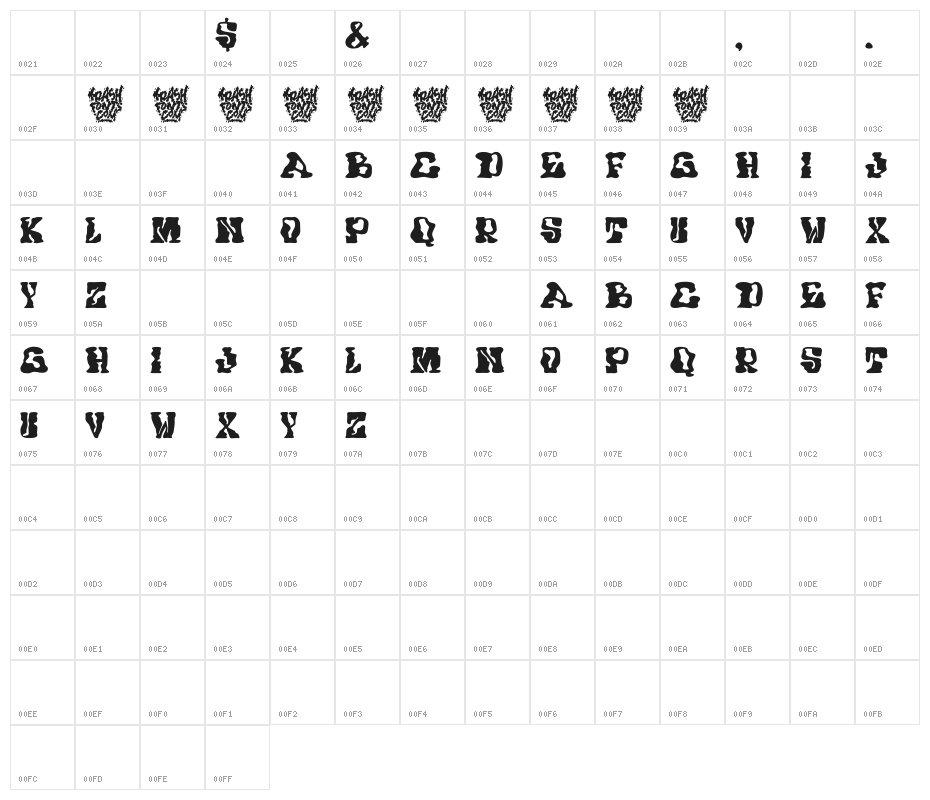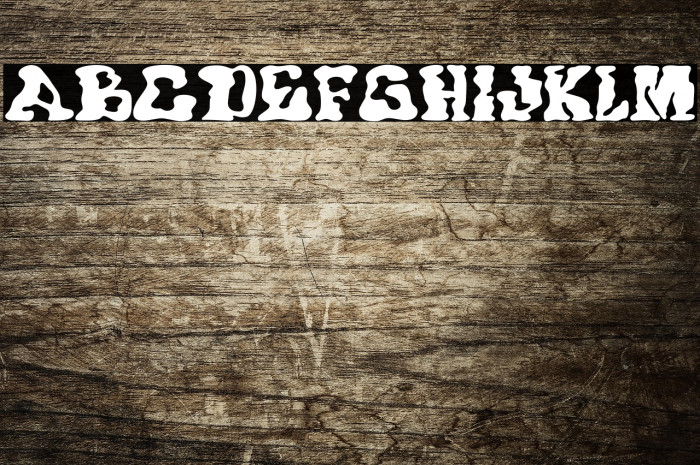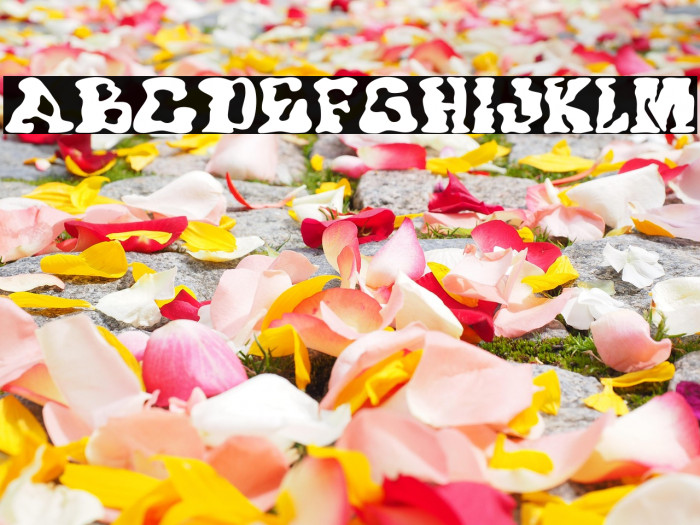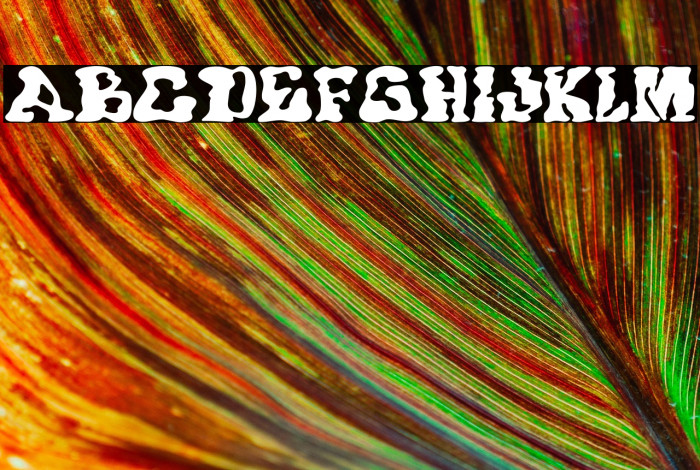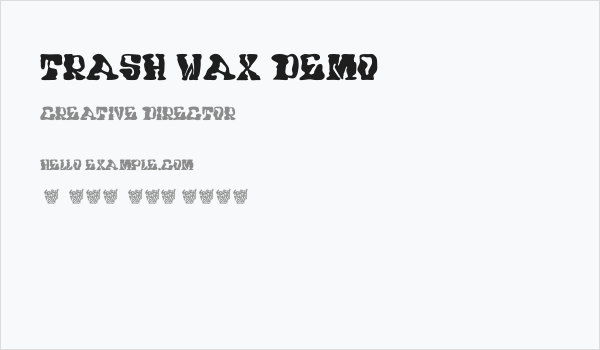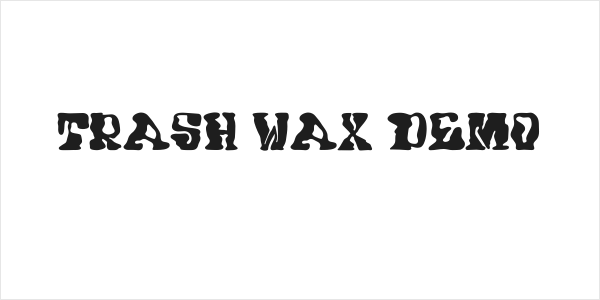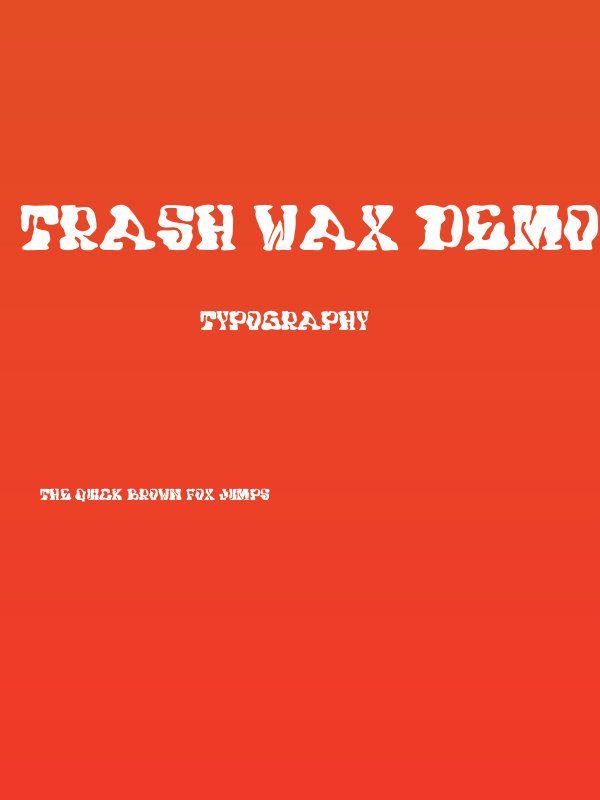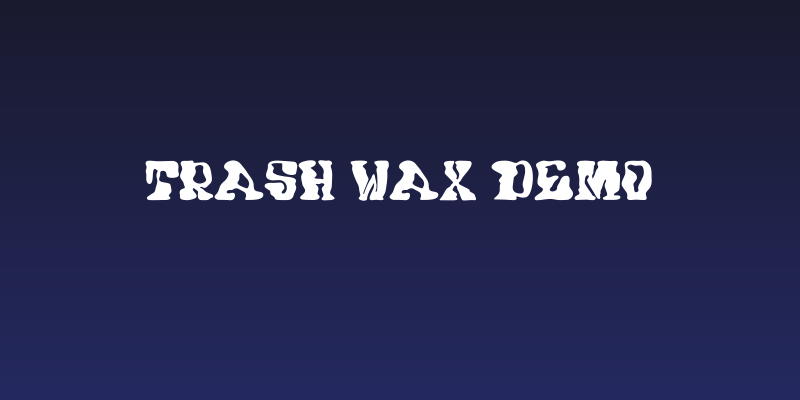
Trash Wax DEMO Font
Trash Wax DEMO Description
This font features a bold and dynamic style with a distressed, grunge-like appearance. The characters are heavily stylized, with irregular edges and a thick, uneven stroke that gives a sense of movement and energy. The uppercase and lowercase letters maintain a consistent design, while the numbers and special characters complement the overall aesthetic. This font's unique and eye-catching design makes it suitable for projects that require a bold statement or an edgy, alternative look.
| Proposed Projects | Ideal for music album covers, posters, streetwear branding, and edgy graphic design projects. |